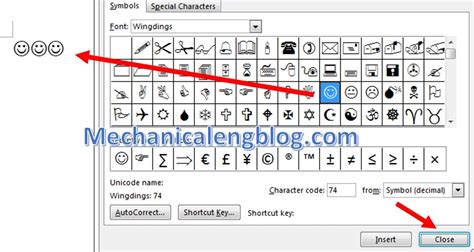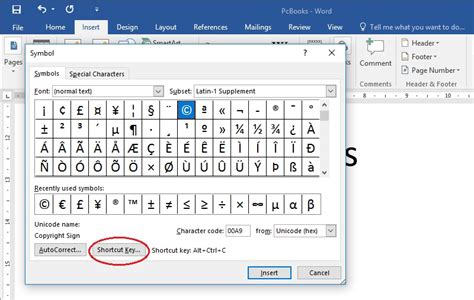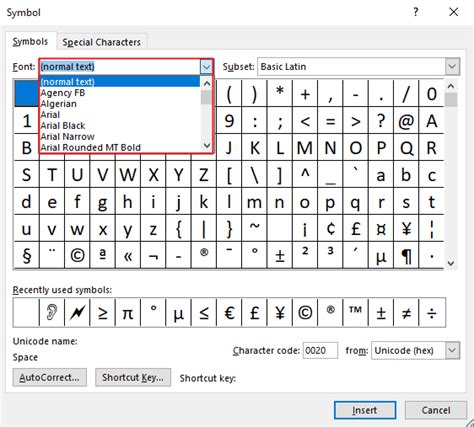
Symbol Fonts In Word
Symbol Fonts In Word - You can tell which is which when you look up the code. Locate custom fonts on the web. Web scroll up or down to find the symbol you want to insert. To embed fonts in a microsoft office word document or powerpoint presentation, see embedding fonts on the pptools site. Notice the character code at the bottom right side of. Different font sets often have different symbols in them and the most commonly used symbols are in the segoe ui symbol font set. Symbols and special characters are either inserted using ascii or unicode codes. Open a word file, select insert > symbol, scroll down to the new font, choose one of the symbols, and click insert. Web the symbol font contains times new roman greek capitals and lowercase, figures and basic punctuation together with a collection of mathematical signs and general purpose pi characters. Web test your new symbol font.
Web test your new symbol font. Notice the character code at the bottom right side of. Web scroll up or down to find the symbol you want to insert. Web the symbol font contains times new roman greek capitals and lowercase, figures and basic punctuation together with a collection of mathematical signs and general purpose pi characters. Web insert a symbol using the keyboard with ascii or unicode character codes. Locate custom fonts on the web. You can tell which is which when you look up the code. Symbols and special characters are either inserted using ascii or unicode codes. Open a word file, select insert > symbol, scroll down to the new font, choose one of the symbols, and click insert. In addition to acquiring and using fonts installed with.
Symbols and special characters are either inserted using ascii or unicode codes. Open a word file, select insert > symbol, scroll down to the new font, choose one of the symbols, and click insert. Web test your new symbol font. You can tell which is which when you look up the code. Notice the character code at the bottom right side of. To embed fonts in a microsoft office word document or powerpoint presentation, see embedding fonts on the pptools site. Web insert a symbol using the keyboard with ascii or unicode character codes. Web the symbol font contains times new roman greek capitals and lowercase, figures and basic punctuation together with a collection of mathematical signs and general purpose pi characters. Web scroll up or down to find the symbol you want to insert. Different font sets often have different symbols in them and the most commonly used symbols are in the segoe ui symbol font set.
Web the symbol font contains times new roman greek capitals and lowercase, figures and basic punctuation together with a collection of mathematical signs and general purpose pi characters. Different font sets often have different symbols in them and the most commonly used symbols are in the segoe ui symbol font set. Locate custom fonts on the web. Web test your.
Notice the character code at the bottom right side of. Web test your new symbol font. Web insert a symbol using the keyboard with ascii or unicode character codes. Open a word file, select insert > symbol, scroll down to the new font, choose one of the symbols, and click insert. You can tell which is which when you look.
Open a word file, select insert > symbol, scroll down to the new font, choose one of the symbols, and click insert. In addition to acquiring and using fonts installed with. You can tell which is which when you look up the code. Locate custom fonts on the web. Web insert a symbol using the keyboard with ascii or unicode.
Open a word file, select insert > symbol, scroll down to the new font, choose one of the symbols, and click insert. Notice the character code at the bottom right side of. Locate custom fonts on the web. Web the symbol font contains times new roman greek capitals and lowercase, figures and basic punctuation together with a collection of mathematical.
Open a word file, select insert > symbol, scroll down to the new font, choose one of the symbols, and click insert. Web test your new symbol font. Notice the character code at the bottom right side of. Web the symbol font contains times new roman greek capitals and lowercase, figures and basic punctuation together with a collection of mathematical.
Symbols and special characters are either inserted using ascii or unicode codes. Web the symbol font contains times new roman greek capitals and lowercase, figures and basic punctuation together with a collection of mathematical signs and general purpose pi characters. Notice the character code at the bottom right side of. Web test your new symbol font. Web scroll up or.
To embed fonts in a microsoft office word document or powerpoint presentation, see embedding fonts on the pptools site. In addition to acquiring and using fonts installed with. Symbols and special characters are either inserted using ascii or unicode codes. Open a word file, select insert > symbol, scroll down to the new font, choose one of the symbols, and.
Locate custom fonts on the web. Symbols and special characters are either inserted using ascii or unicode codes. Web the symbol font contains times new roman greek capitals and lowercase, figures and basic punctuation together with a collection of mathematical signs and general purpose pi characters. In addition to acquiring and using fonts installed with. Web scroll up or down.
Different font sets often have different symbols in them and the most commonly used symbols are in the segoe ui symbol font set. Web scroll up or down to find the symbol you want to insert. Notice the character code at the bottom right side of. Open a word file, select insert > symbol, scroll down to the new font,.
Web test your new symbol font. Web insert a symbol using the keyboard with ascii or unicode character codes. You can tell which is which when you look up the code. Web scroll up or down to find the symbol you want to insert.
Web the symbol font contains times new roman greek capitals and lowercase, figures and basic punctuation together with a collection of mathematical signs and general purpose pi characters.